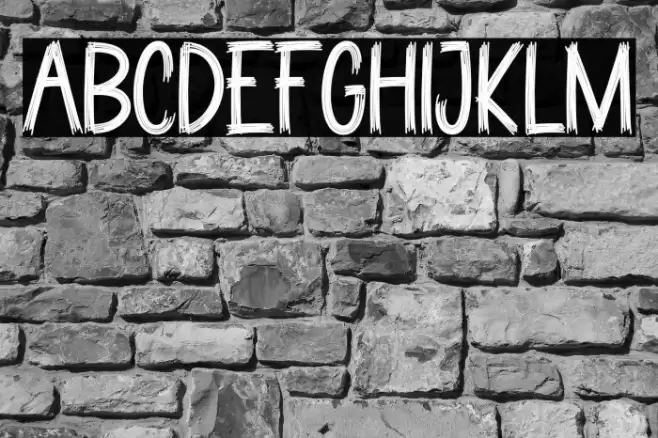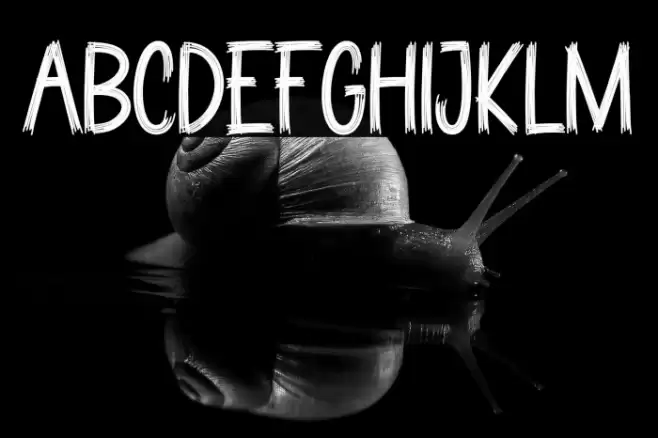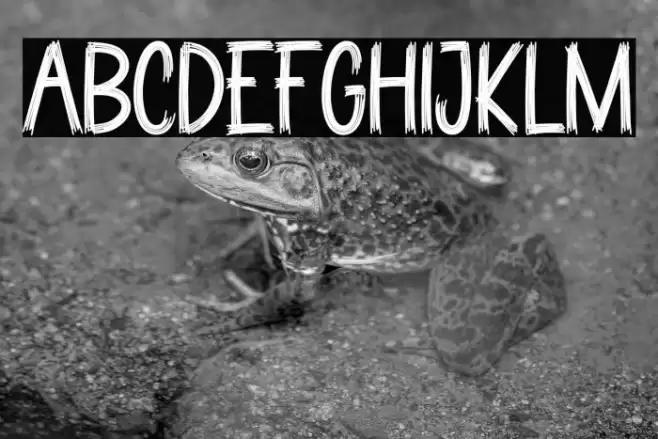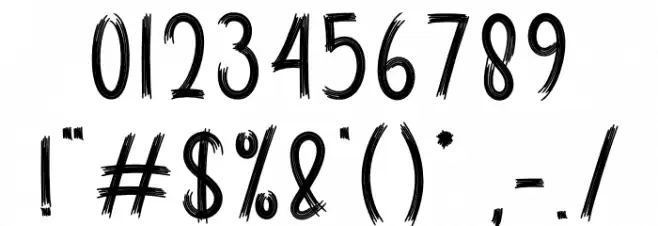
Witch Ghost Font
Witch Ghost Description
This font features a unique, hand-drawn style with a spooky, ghostly appearance. The letters are characterized by uneven, jagged edges and a slightly distressed look, giving them a haunted, eerie feel. The strokes are irregular, with varying thicknesses that add to the unsettling aesthetic. The uppercase and lowercase letters maintain a consistent style, while the numbers and special characters complement the overall theme. This font is perfect for Halloween-themed projects or any design that requires a touch of the supernatural.
A spooky, hand-drawn font with jagged edges and a ghostly appearance from Uncategorized fonts.
- Font: Witch Ghost
- Proposed Projects: Ideal for Halloween invitations, horror movie posters, themed party decorations, and spooky graphic designs.
- Use Case: Headlines, Posters, Themed Events